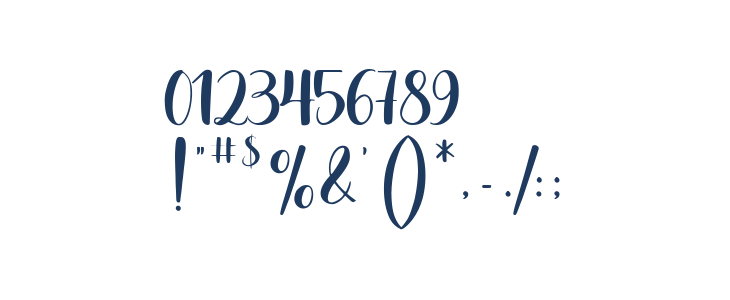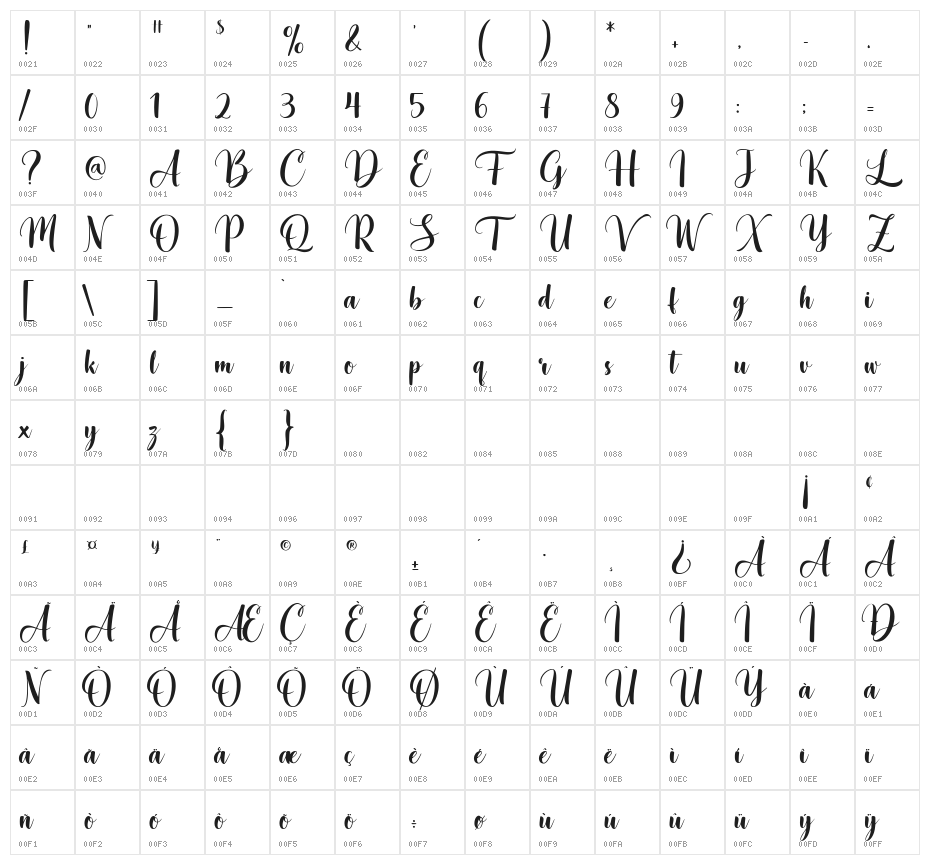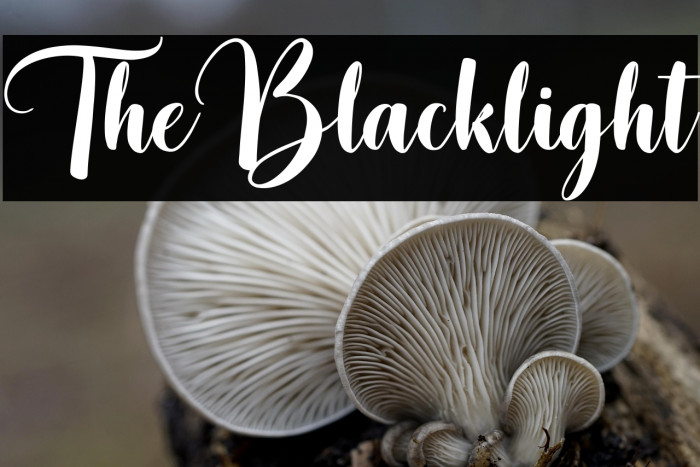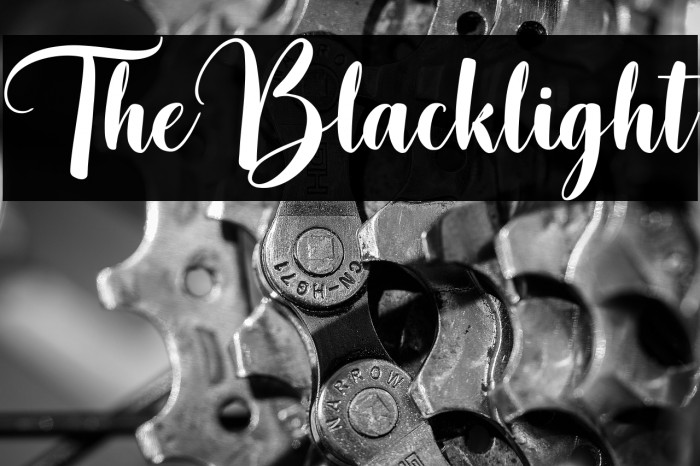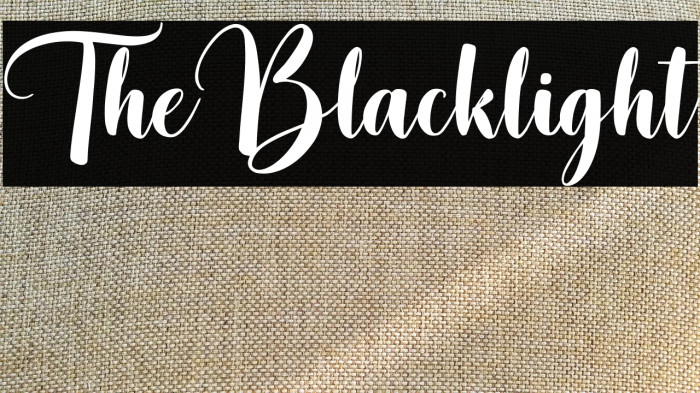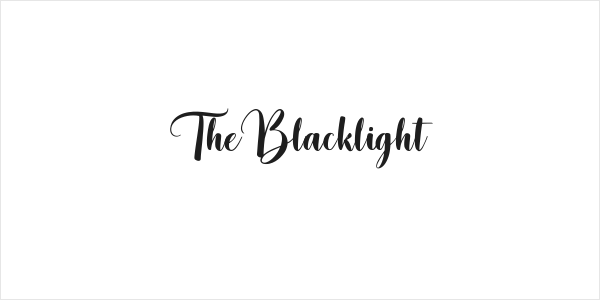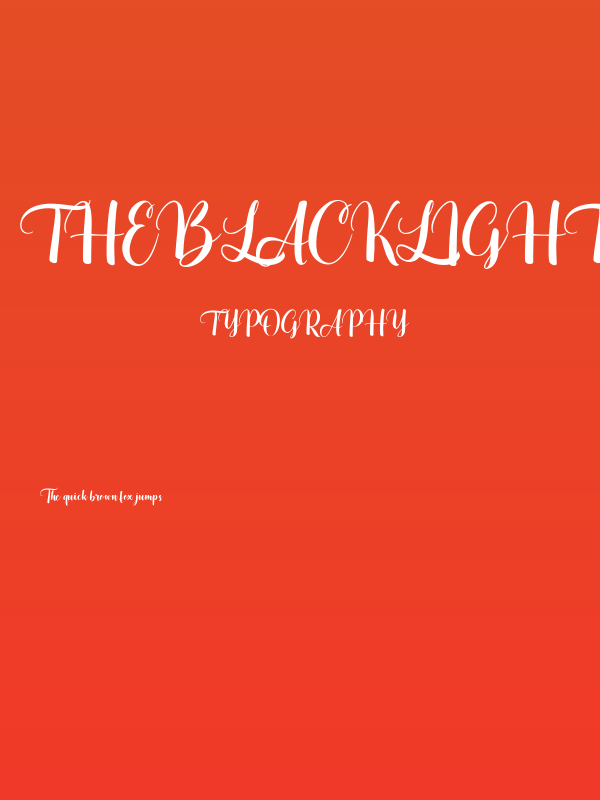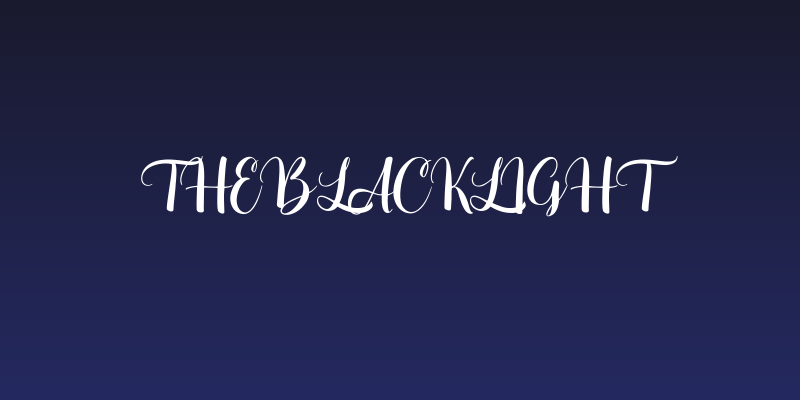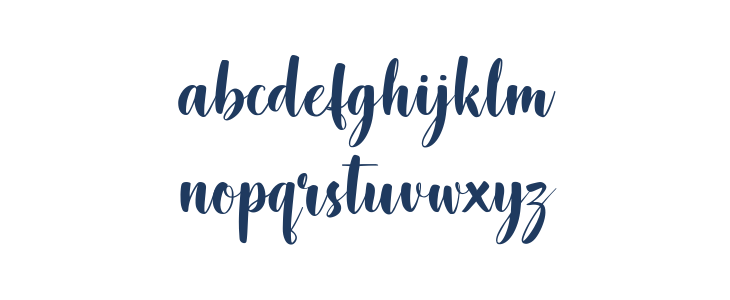
TheBlacklight Font
TheBlacklight Description
This font features a dynamic and elegant script style, characterized by its flowing, cursive letterforms. The uppercase letters exhibit a graceful, sweeping motion with varying stroke widths, creating a sense of movement and sophistication. The lowercase letters continue this fluidity, maintaining a consistent style that is both legible and decorative. The numerals are bold and slightly condensed, complementing the overall aesthetic. Special characters are thoughtfully designed to match the script's elegance, making it suitable for a variety of creative applications.